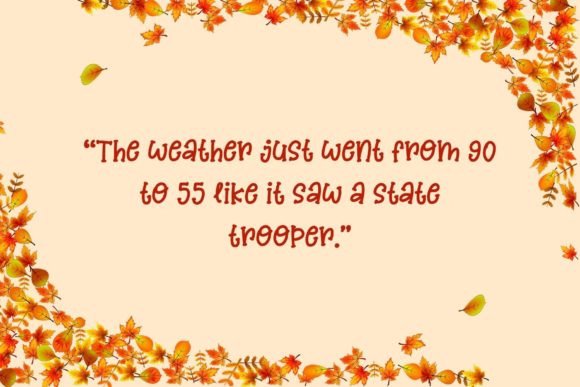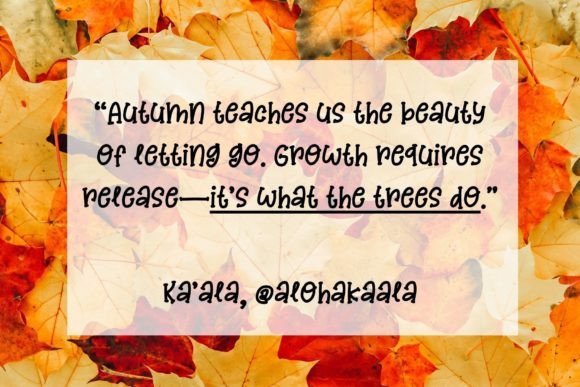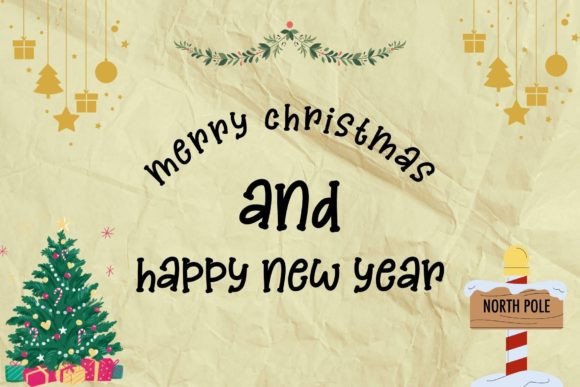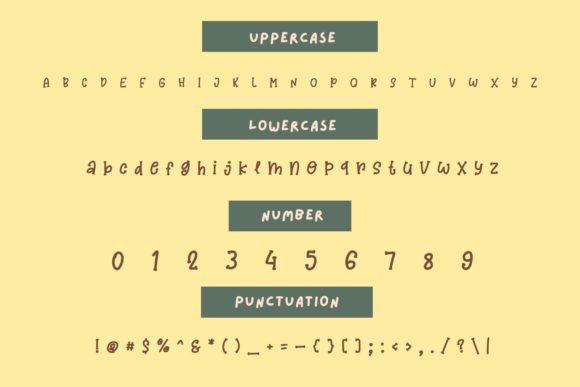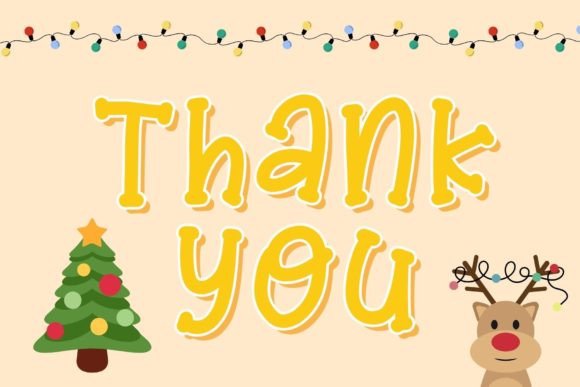
Happy Monday Font: The Perfect Addition to Your Design Projects
Are you tired of using the same old fonts for your design projects? Look no further than the Happy Monday Font! This adorable handwritten font is sure to bring a touch of playfulness and authenticity to any project you’re working on. In this article, we’ll dive into the details of the Happy Monday Font and explore how it can elevate your designs.
What is Happy Monday Font?
Happy Monday Font is a cute and charming handwritten font that is perfect for adding a personal touch to your designs. Its playful and authentic vibe makes it an excellent choice for a wide range of projects, from blog posts and logos to branding, ads, invitations, greeting cards, planners, photo albums, decorations, and more.
Key Features of Happy Monday Font
- Playful and Authentic: Happy Monday Font embodies a sense of playfulness and authenticity, making it perfect for designs that require a personal touch.
- Handwritten Style: This font features a beautiful handwritten style that is sure to add a touch of warmth and personality to your designs.
- Versatile: Happy Monday Font is incredibly versatile and can be used for a wide range of projects, from digital designs to print materials.
- Easy to Read: Despite its playful nature, Happy Monday Font is easy to read and understand, making it perfect for body text and headings.
Uses of Happy Monday Font
So, what can you use Happy Monday Font for? The possibilities are endless! Here are a few ideas to get you started:
- Blog Posts: Add a personal touch to your blog posts with Happy Monday Font. Use it for headings, subheadings, or even the entire body text.
- Logos and Branding: Create a unique and memorable logo for your brand with Happy Monday Font. Its playful and authentic vibe makes it perfect for businesses that want to stand out.
- Invitations and Greeting Cards: Add a touch of warmth and personality to your invitations and greeting cards with Happy Monday Font.
- Planners and Photo Albums: Use Happy Monday Font to add a personal touch to your planners and photo albums. It’s perfect for journaling, titles, and headings.
- Decorations: Happy Monday Font can even be used for decorations, such as party banners, signs, and DIY projects.
Why Choose Happy Monday Font?
So, why should you choose Happy Monday Font for your design projects? Here are a few reasons:
- Unique and Creative: Happy Monday Font is a unique and creative font that will set your designs apart from the rest.
- High-Quality: Happy Monday Font is a high-quality font that is designed to produce crisp and clear results.
In conclusion, Happy Monday Font is a fantastic addition to any design project. Its playful and authentic vibe makes it perfect for a wide range of designs, from blog posts and logos to invitations and decorations. With its ease of use, high-quality design, and versatility, Happy Monday Font is sure to become a favorite among designers and crafters. So why not give it a try and see the difference it can make in your designs?